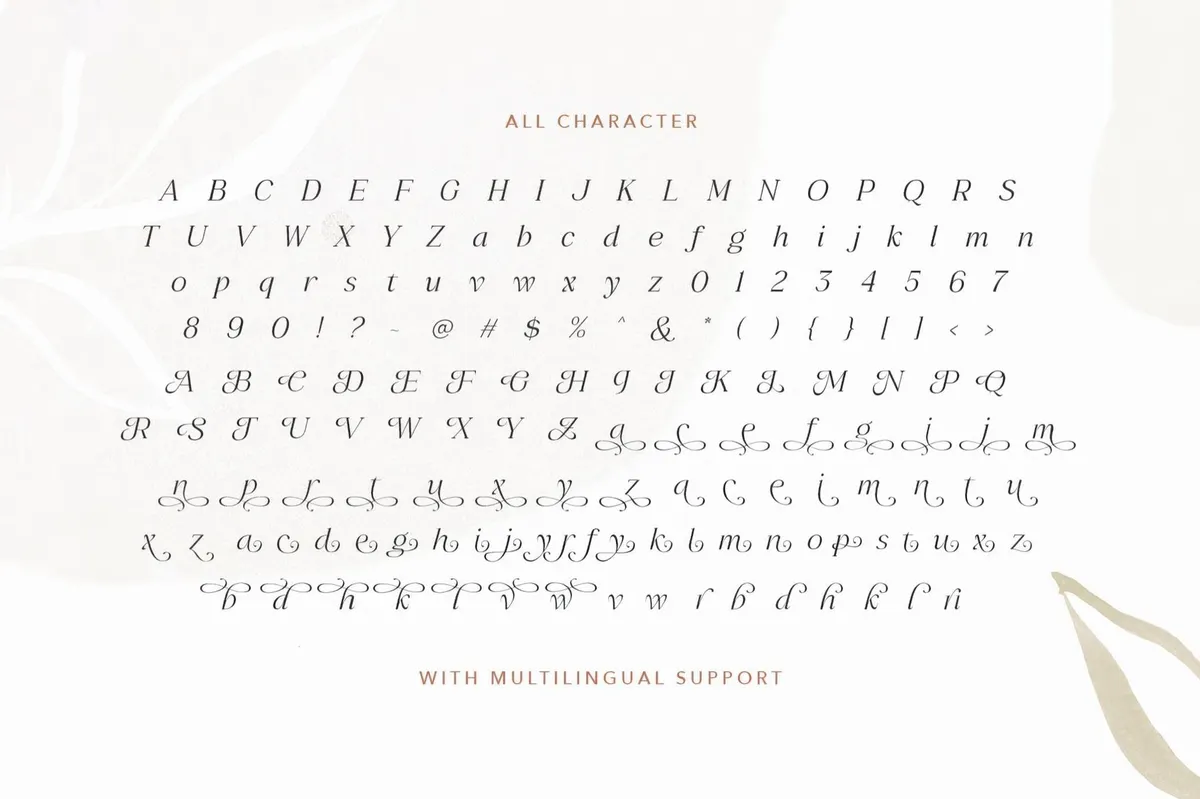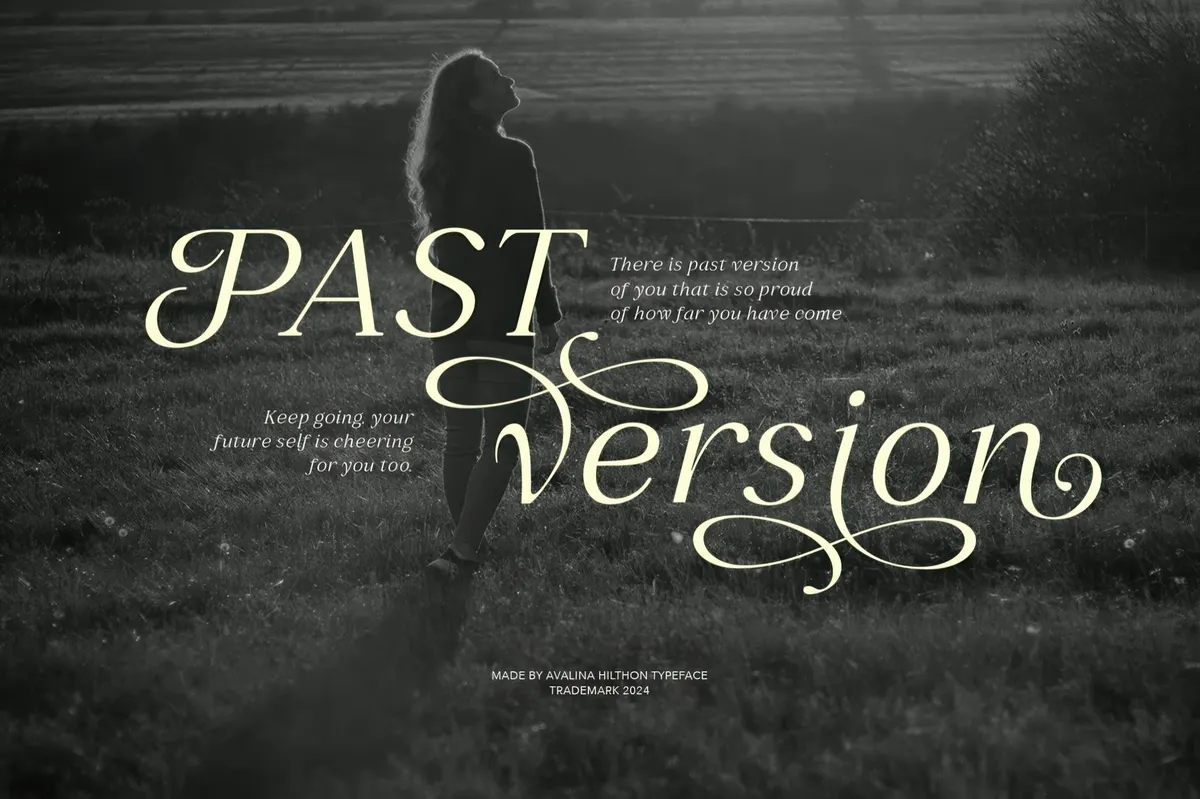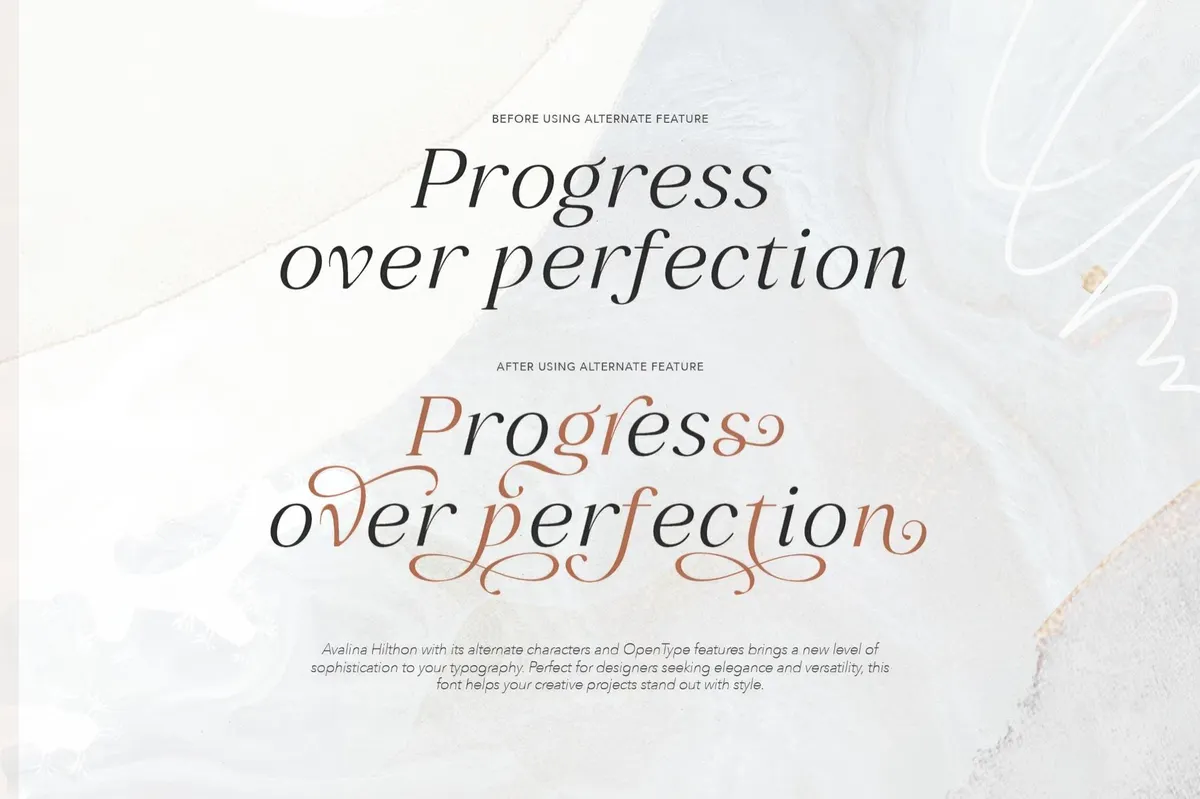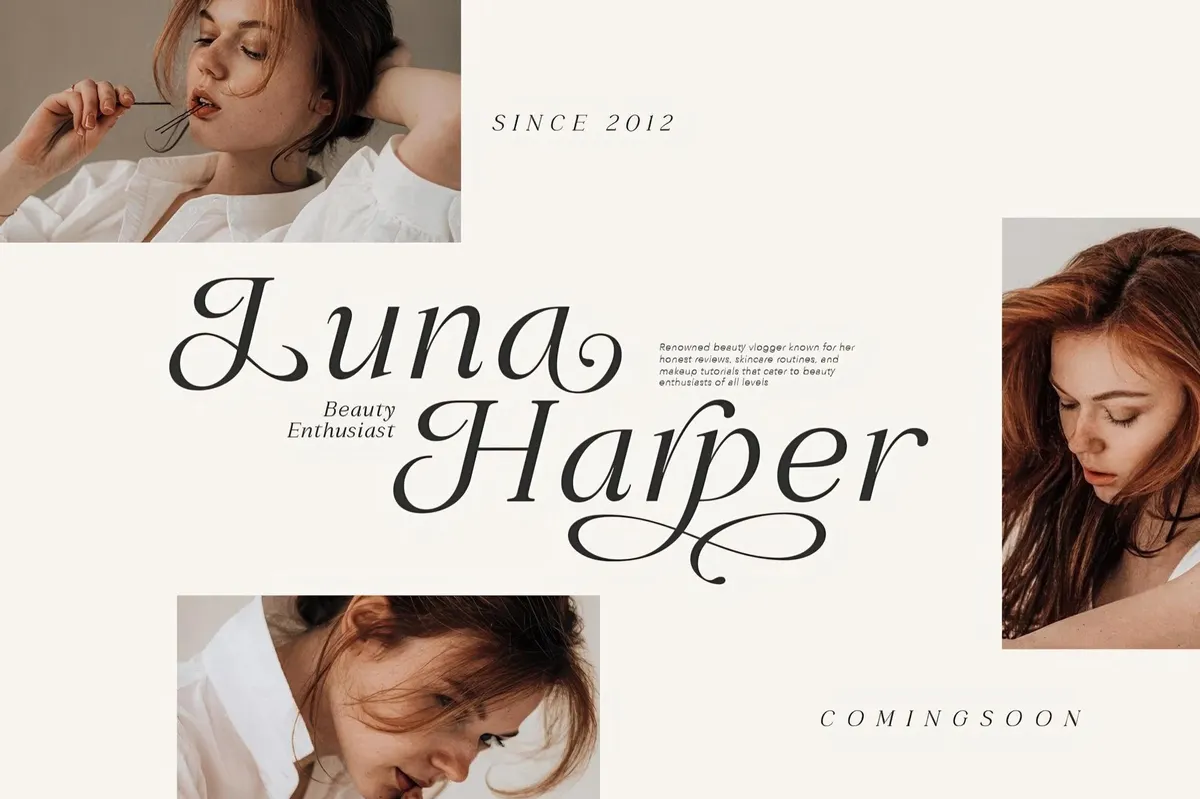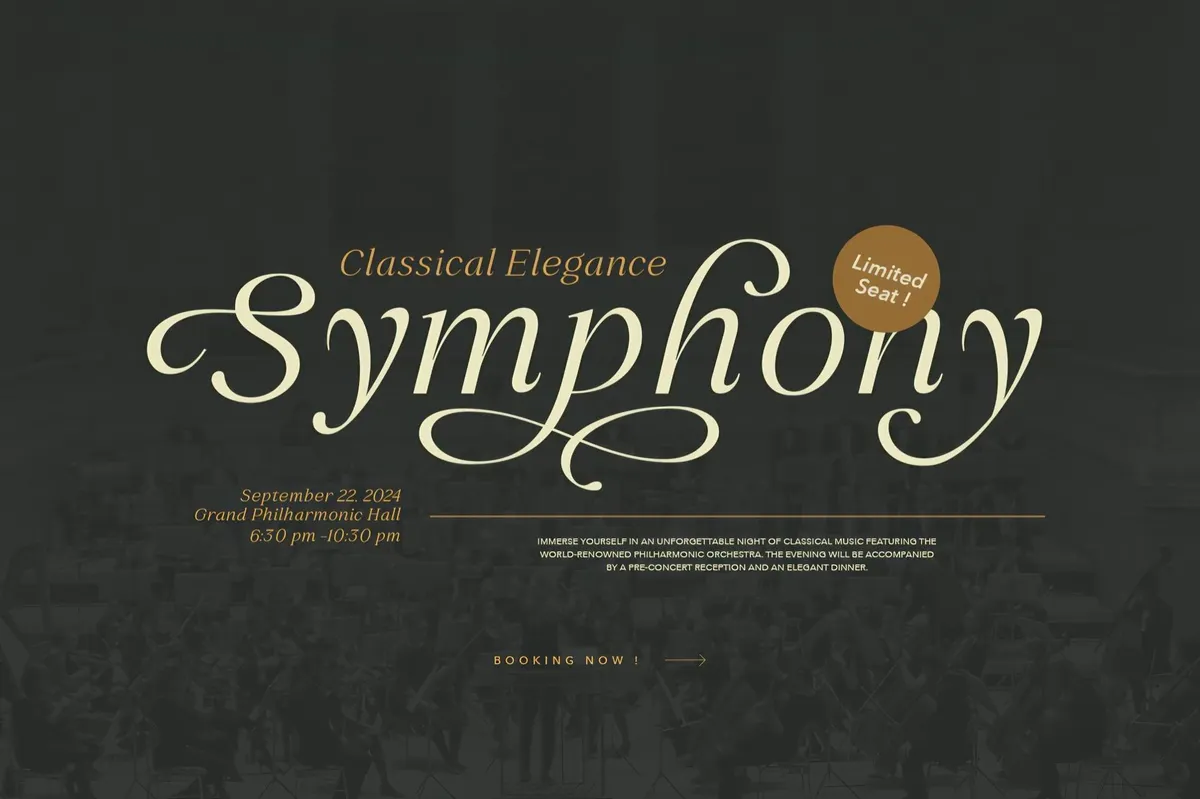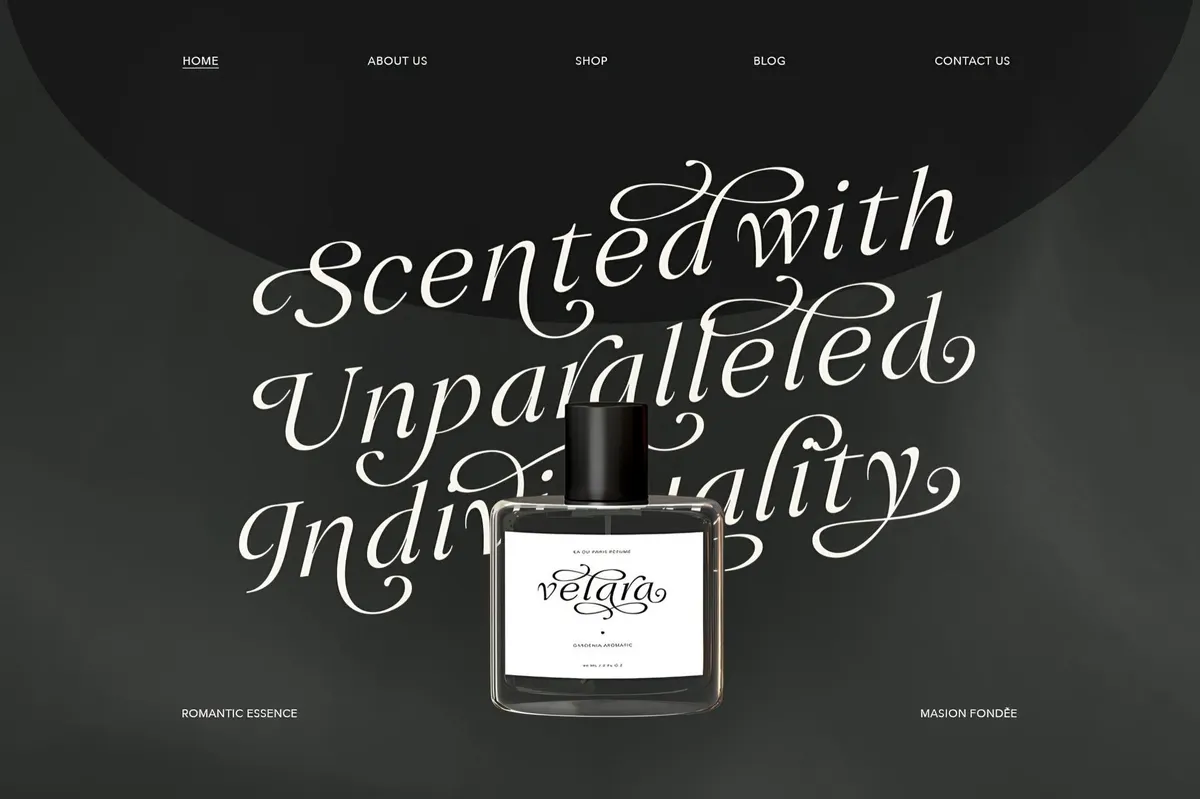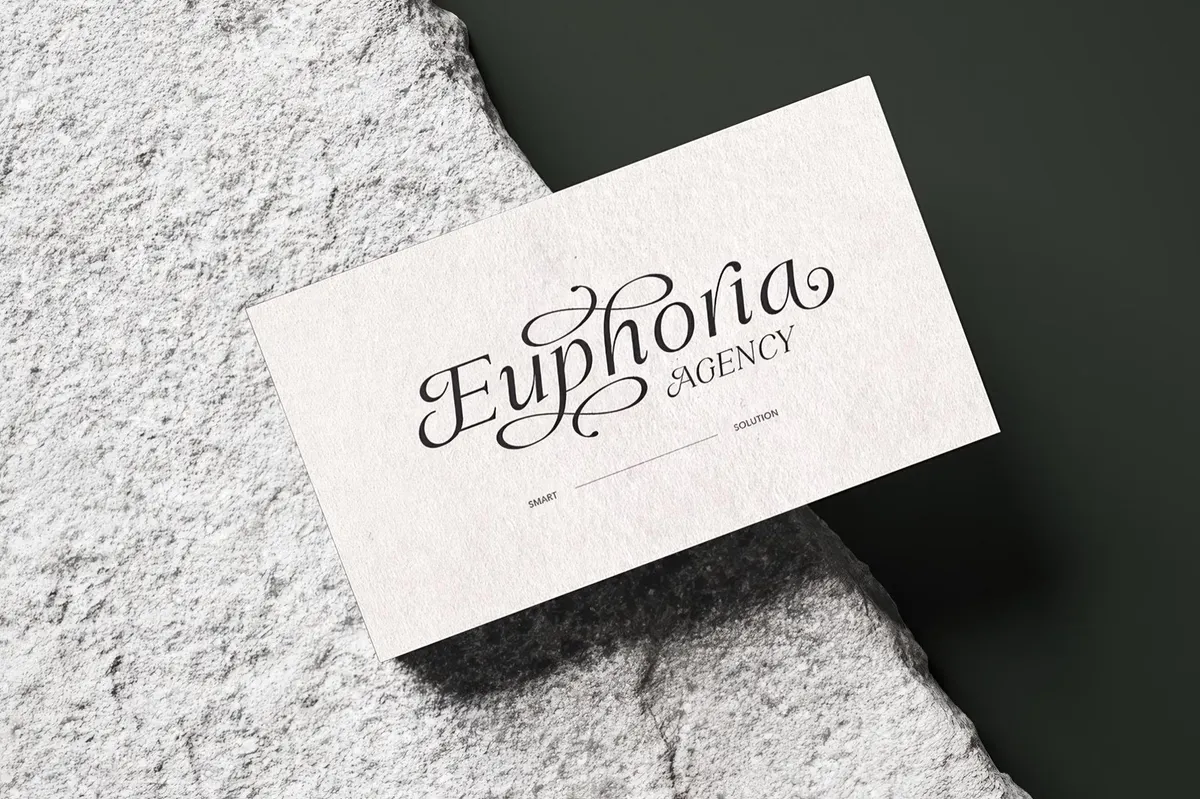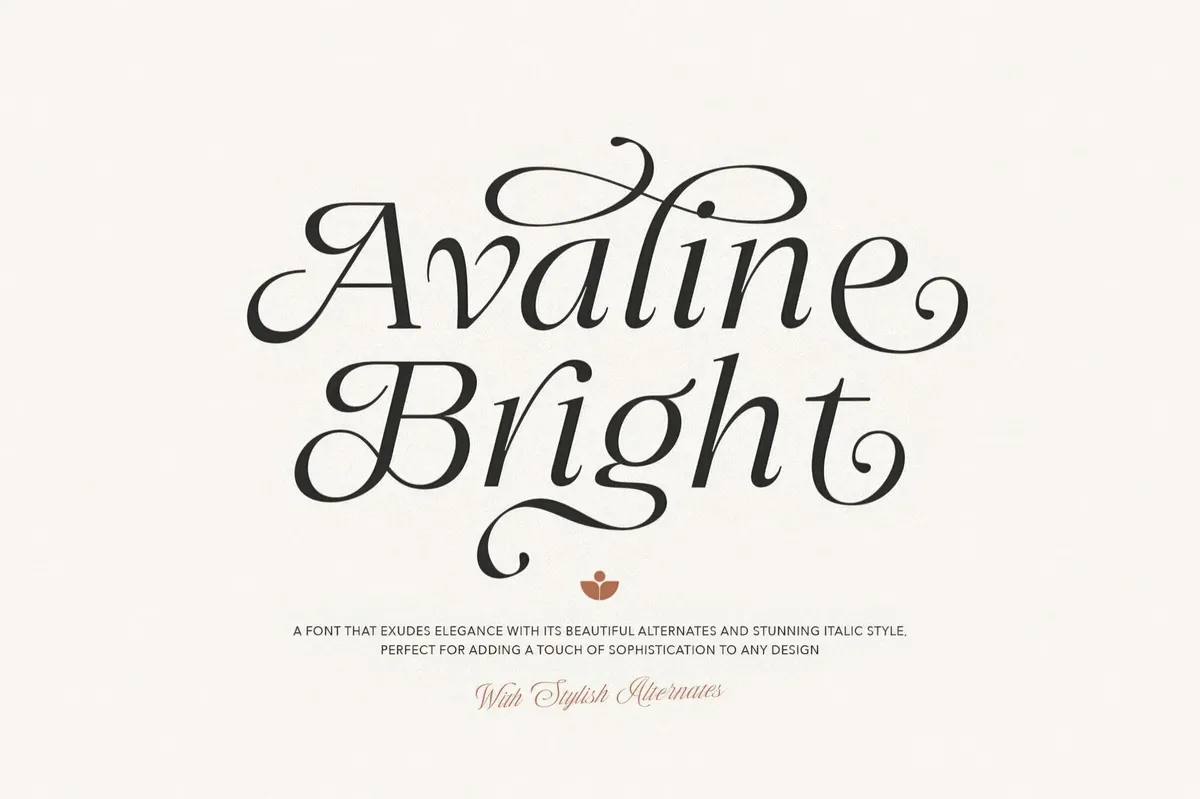
Avaline Bright — Luxury Italic Font
Avaline Bright
Avaline Bright is a refined serif font based on classical calligraphy and modern type design. Its elegant italic construction and delicate curves are enriched by a collection of sophisticated alternates, giving each letterform a tailored, ornamental presence. The result is a typeface that feels timeless yet freshly expressive.
With full uppercase and lowercase sets, multilingual support, numerals, punctuation, and a suite of ornate stylistic characters, Avaline Bright adapts seamlessly across applications. Use it for wedding stationery, upscale branding, beauty packaging, fashion editorials, and social media content.